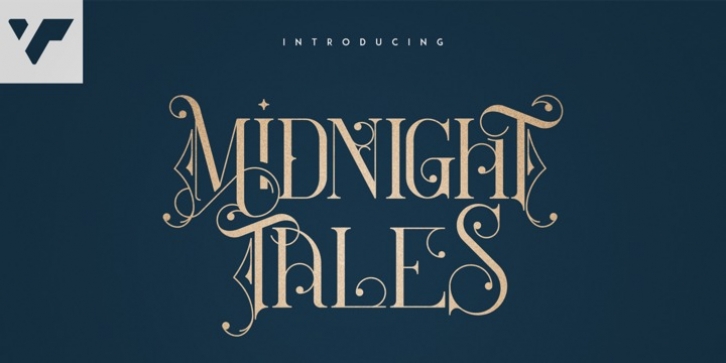
Introducing Midnight Tales - Vintage Font
Midnight Tales is vintage, elegant font with tons of alternate glyphs, ligatures and multilingual support. It's a very versatile font that works great in large and small sizes.
Midnight Tales is perfect for branding projects, home-ware designs, product packaging, magazine headers - or simply as a stylish text overlay to any background image.